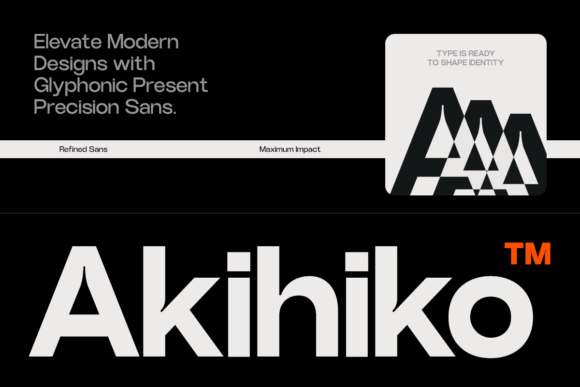
Akihiko: A Clean Sans Serif Font for Professional Branding
Akihiko is a contemporary sans serif typeface designed with refined geometry and a precise modern structure. As a small business owner, I understand how important it is to look polished and consistent across every customer touchpoint. Whether you're designing a logo, packaging, or social media graphics, choosing the right font can make your brand feel more trustworthy and recognizable. Akihiko delivers clarity and control, making it an excellent choice for entrepreneurs who want a clean, confident typographic voice without sacrificing readability.
Akihiko for Logo Design and Brand Identity
When building a brand, your logo is often the first impression customers have of your business. Akihiko works exceptionally well for boutique logos, café branding, and creative startups. Its modern, structured design conveys professionalism while maintaining a subtle warmth that helps your brand feel approachable. Whether you're launching a new product line or refreshing your visual identity, Akihiko adds a touch of sophistication that helps your logo stand out in a crowded market.
Akihiko for Product Packaging and Labels
If you sell handmade candles, organic skincare products, or artisanal food items, your packaging needs to communicate quality and trust. Akihiko's clean lines and balanced proportions make it ideal for product labels and packaging design. It’s easy to read at small sizes, which is crucial for items like stickers, tags, and cosmetic labels. I’ve used Akihiko on my own product packaging and noticed how it helped create a more cohesive and premium brand experience, even on simple printed materials.
Akihiko for Social Media Graphics and Digital Marketing
In today’s visual economy, your Instagram posts, Pinterest pins, and Facebook ads need to grab attention fast. Akihiko is a great choice for digital ads, quote graphics, and promotional banners because it’s highly legible on both desktop and mobile screens. Its modern sans serif style pairs well with bold visuals and minimalist layouts alike. Whether you're a coach promoting an online course or a boutique owner showcasing new arrivals, Akihiko ensures your message is clear, stylish, and visually aligned with your brand.
Akihiko for Website Design and Email Newsletters
Your website and email campaigns are critical for converting visitors into customers. Akihiko’s structured design makes it a strong choice for website headers, call-to-action buttons, and email subject lines. It’s clean enough to work across industries—from tech startups to wellness brands—and its high readability ensures your content is easy to scan. I’ve used Akihiko in web banners and landing pages, and it consistently helps create a more focused, professional layout that guides the reader’s eye where it matters most.
Akihiko for Print Materials and Offline Branding
Even in a digital-first world, printed materials like business cards, flyers, and thank-you notes still carry weight. Akihiko holds up beautifully in print thanks to its precise structure and balanced spacing. It works well for café menus, event flyers, and branded stationery. I’ve found that using Akihiko across both digital and print assets helps maintain a consistent brand voice, whether customers see your logo on a website or in person. It’s a versatile font that bridges the gap between online and offline branding seamlessly.
Akihiko as a Display Font for Headlines and Titles
When you need to grab attention quickly, Akihiko shines as a display font. Use it for headlines in digital ads, Instagram Stories, or blog post banners. Its modern structure makes it ideal for short, impactful text that needs to stand out without overwhelming the design. Unlike overly stylized fonts, Akihiko maintains readability even when used at larger sizes, making it a smart choice for both print and digital headlines.
Akihiko for Supporting Text and Body Copy
While Akihiko is often used for headlines and branding elements, it also works well as a supporting typeface in body copy. Its open letterforms and consistent spacing ensure legibility across different platforms. I’ve used it in email footers, product descriptions, and even packaging inserts with great results. Pair it with a decorative or script font for contrast, or use it alone for a clean, minimalist look that keeps your message front and center.
How to Pair Akihiko with Other Fonts
Font pairing is a subtle but powerful way to elevate your brand’s visual identity. Akihiko pairs beautifully with script fonts for contrast or with serif fonts for a balanced, editorial feel. For a modern look, try combining Akihiko with a handwritten or geometric sans serif font. If you're designing a logo or product label, pairing Akihiko with a more expressive typeface can create a dynamic hierarchy that draws the eye while maintaining readability. Just be sure to keep the overall design balanced and avoid overcomplicating your layout.
Why Akihiko Stands Out Among Sans Serif Fonts
There are countless sans serif fonts available, but Akihiko distinguishes itself with its refined geometry and modern structure. Unlike generic sans serifs that can feel flat or uninspired, Akihiko brings a sense of intention and clarity to every design. It’s not just a font—it’s a design asset that helps your brand communicate professionalism, consistency, and attention to detail. Whether you're a small business owner, independent creator, or service provider, Akihiko gives you the tools to build a strong, recognizable brand identity.